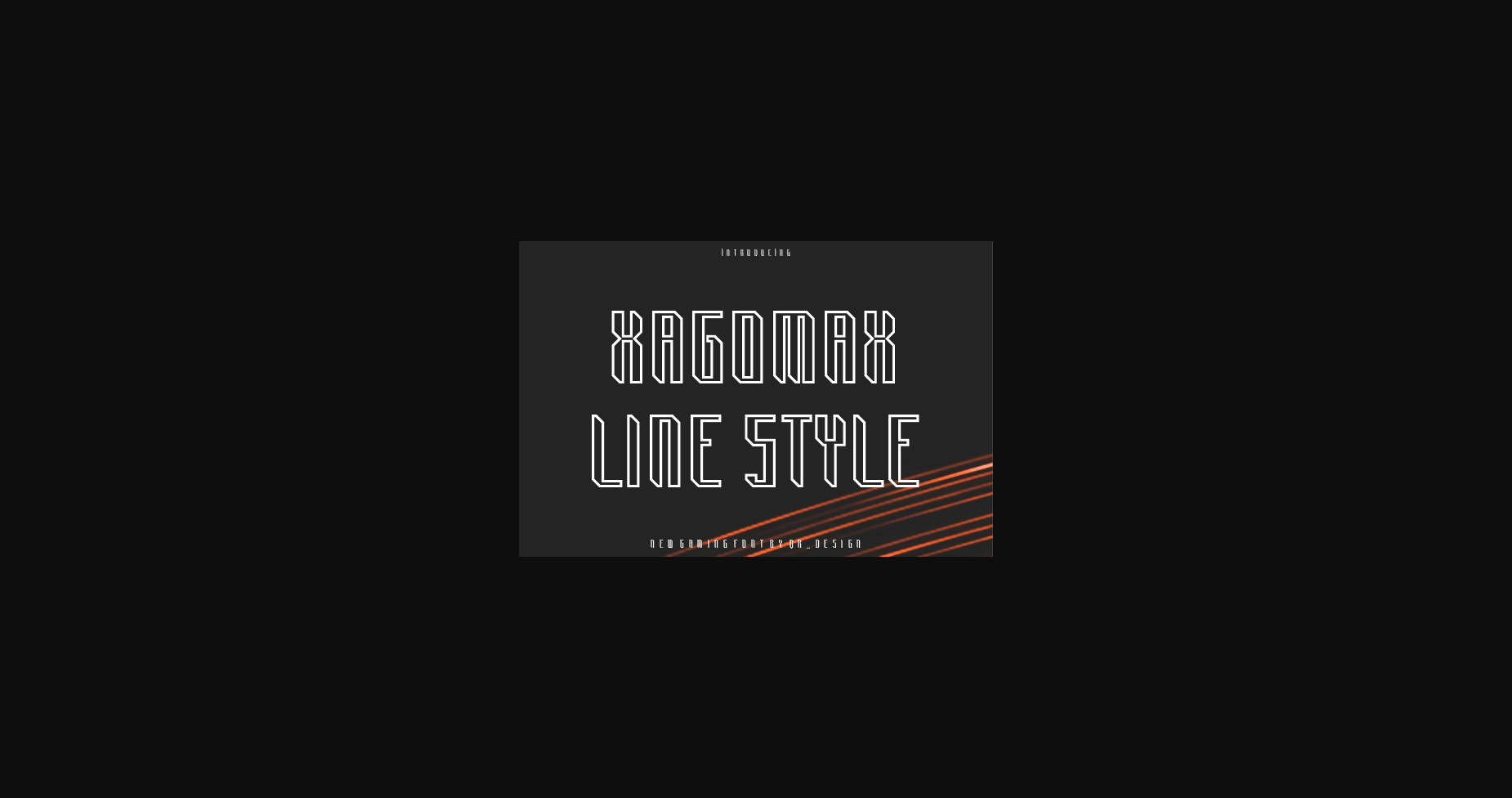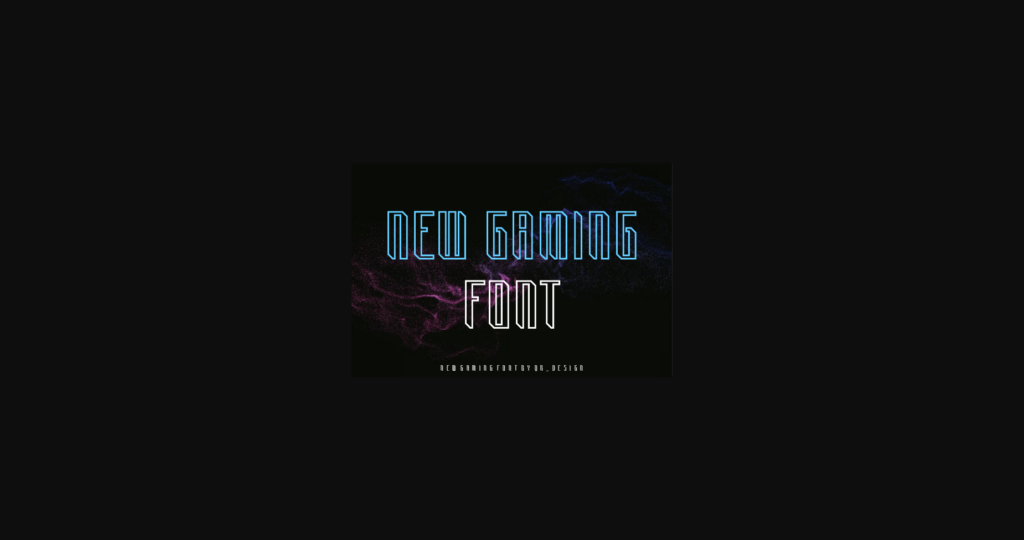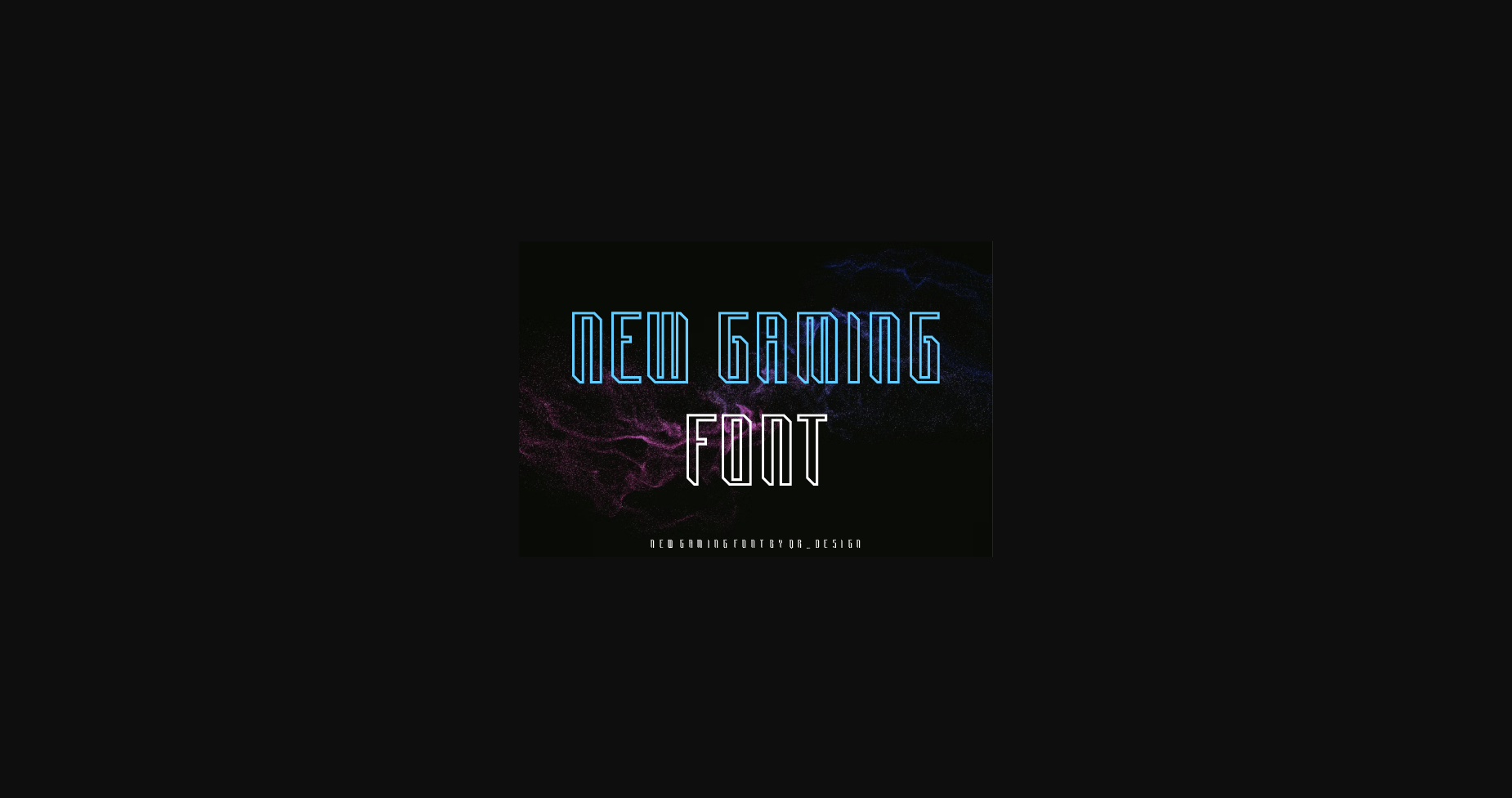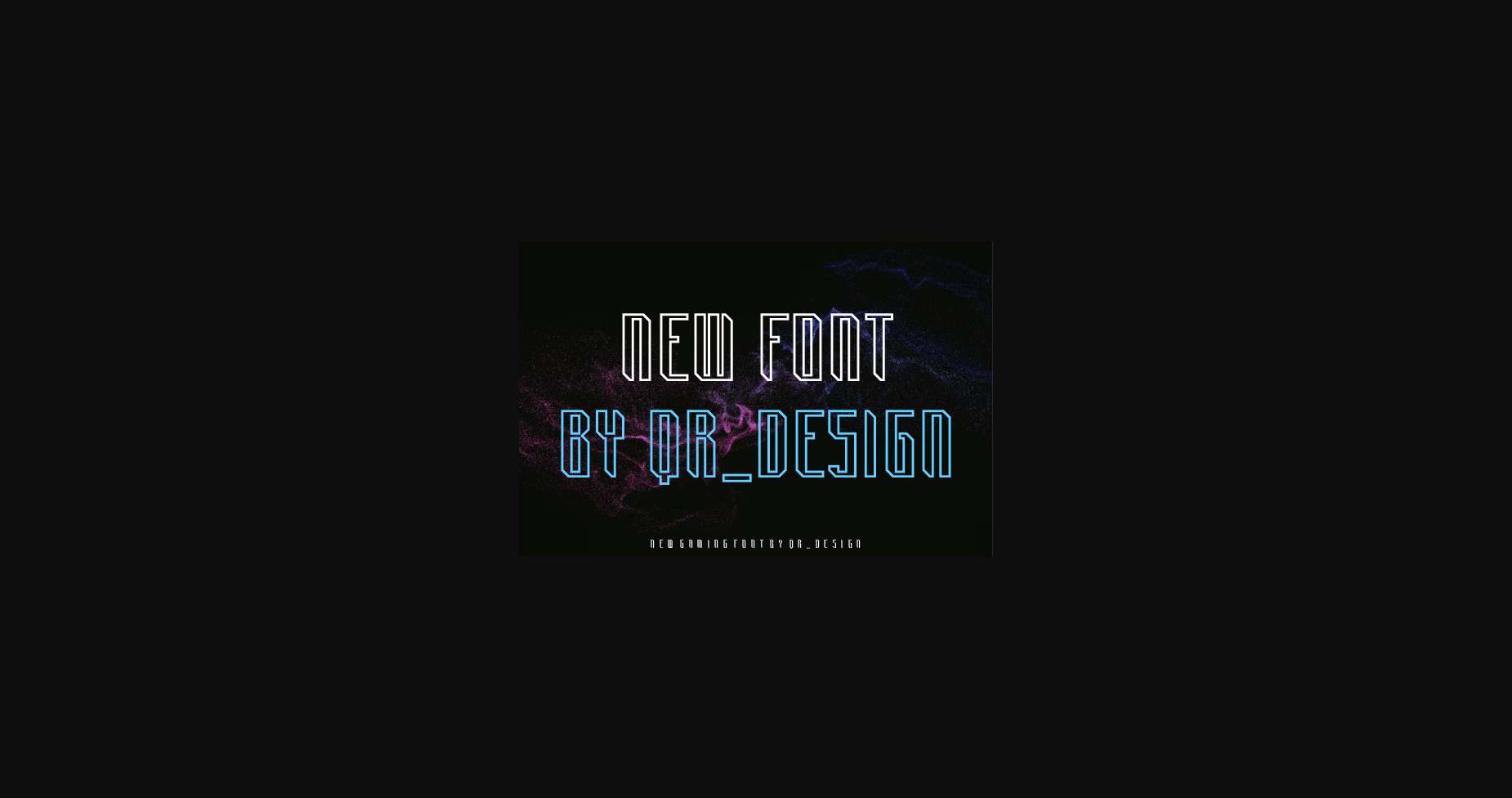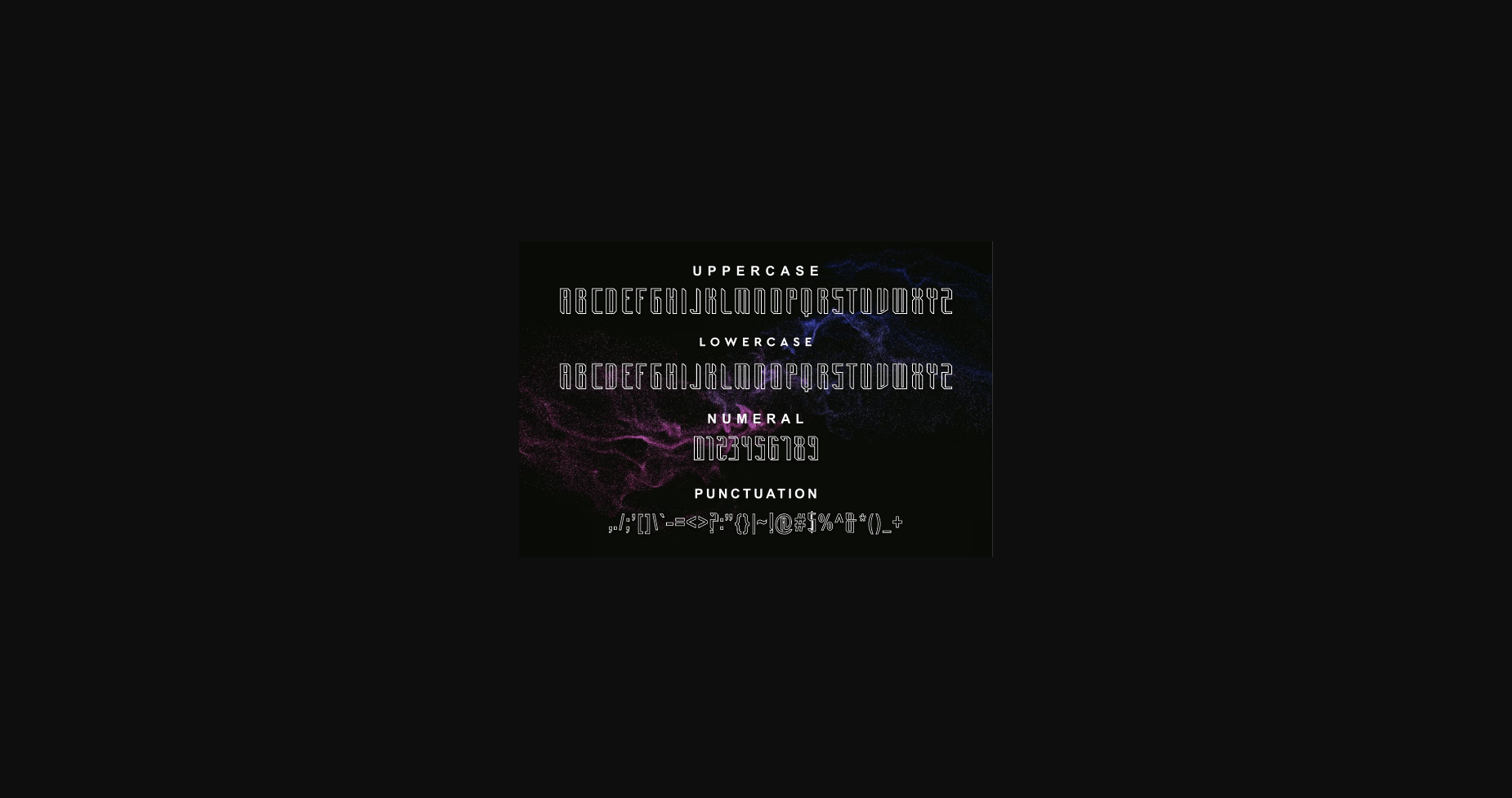
About Xagomax Font
Xagomax Line – Gaming Font is a bold and authentic display font. The font is suitable for any branding project like logo, t-shirt printing, e-sport, and many more. Outstanding in a wide range of contexts.